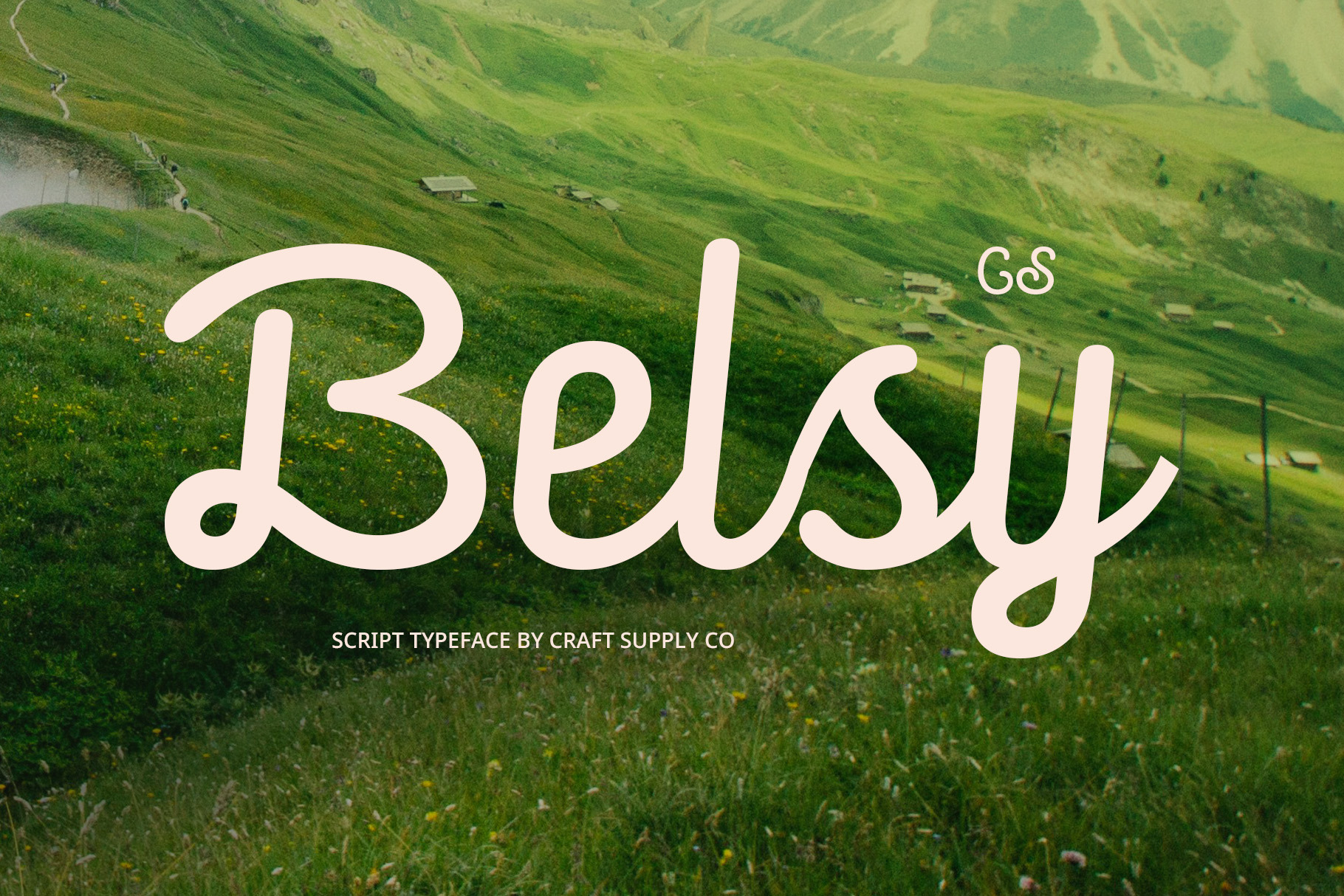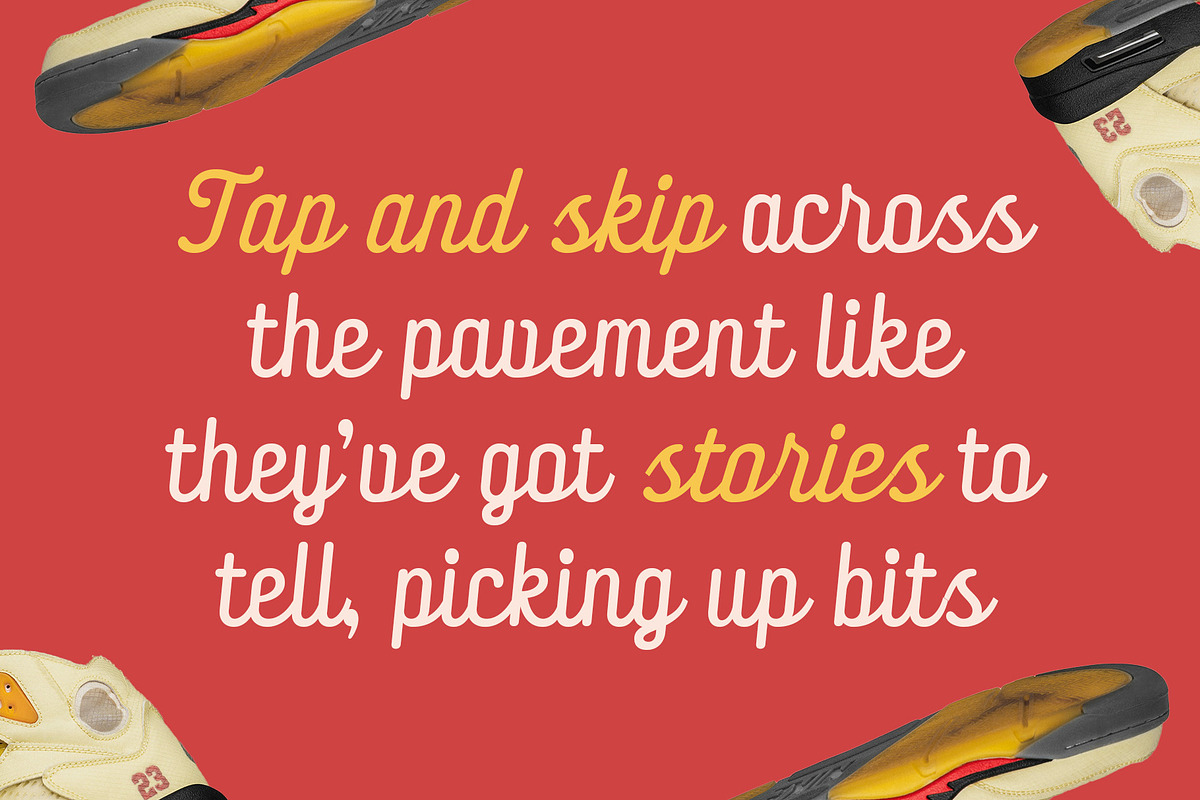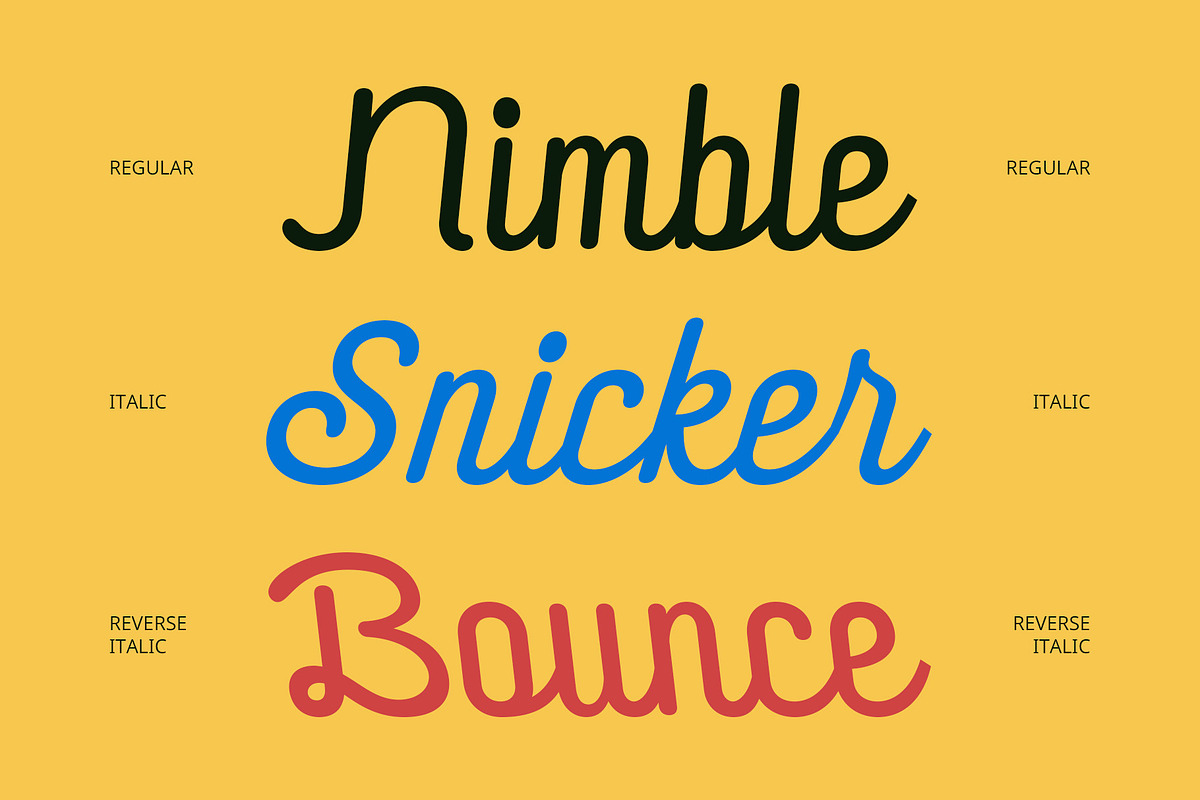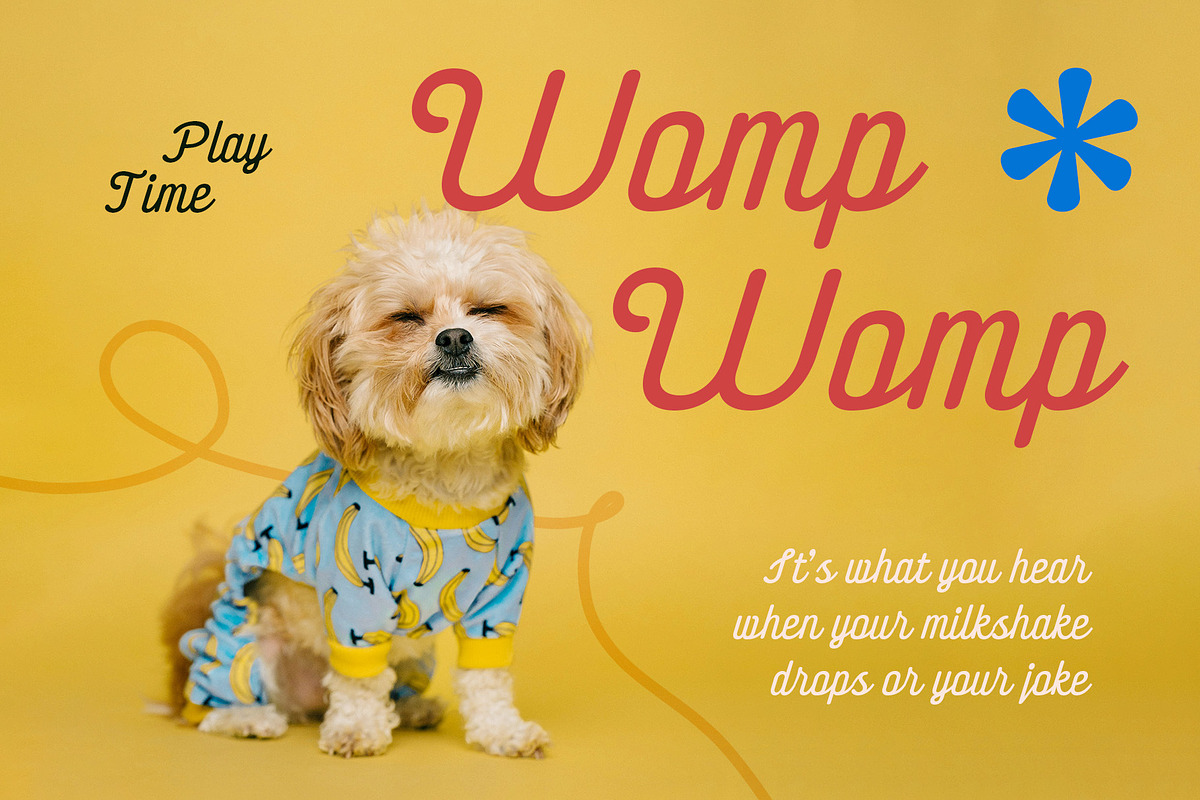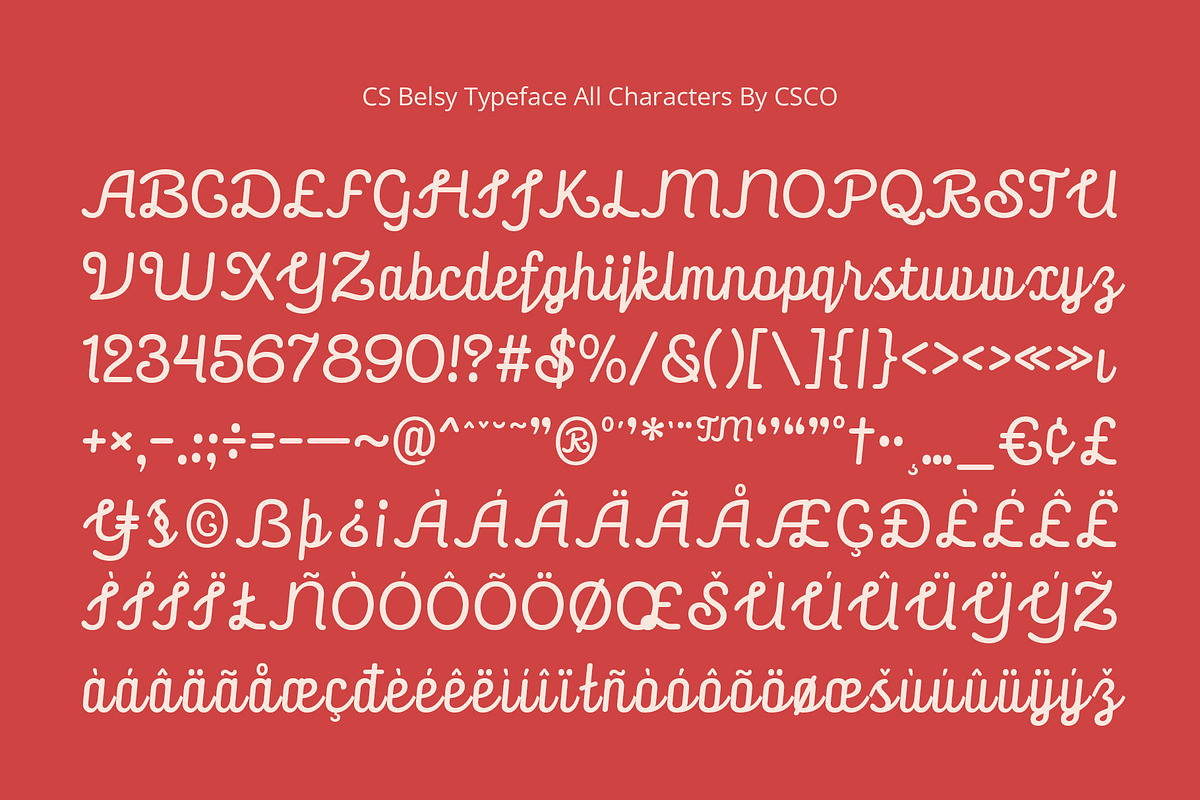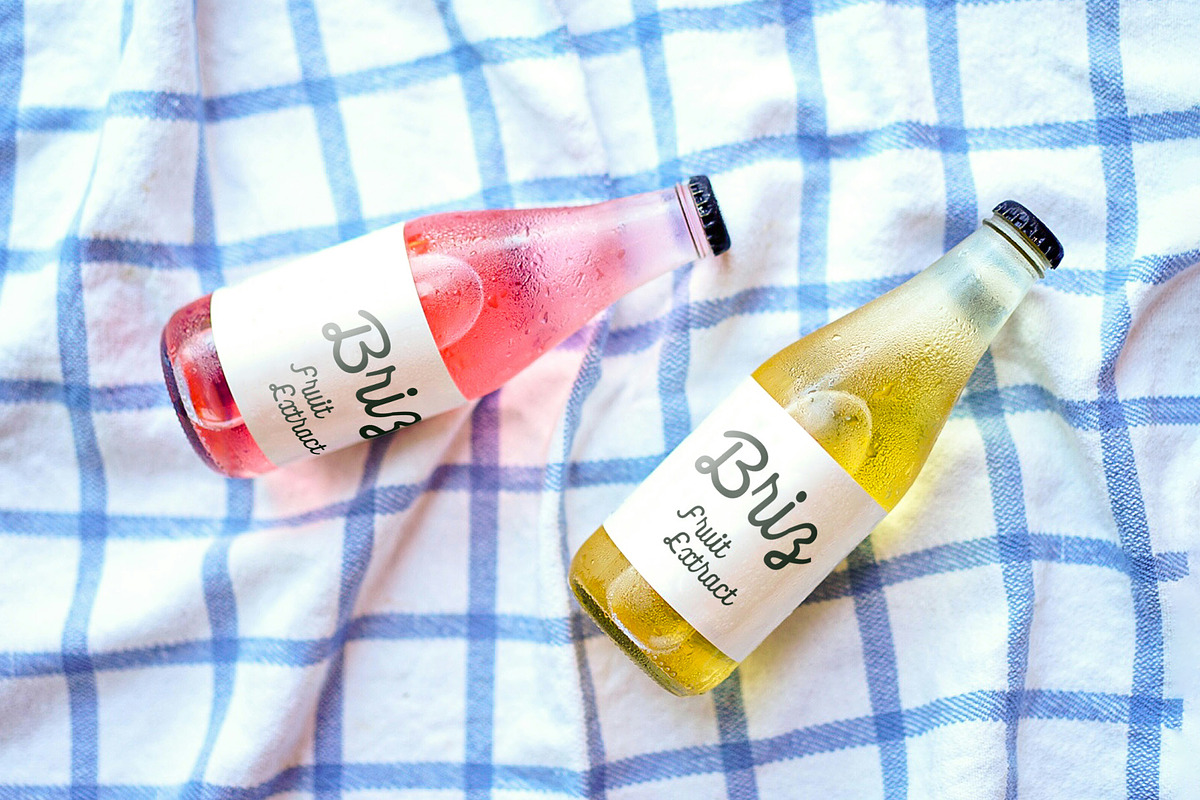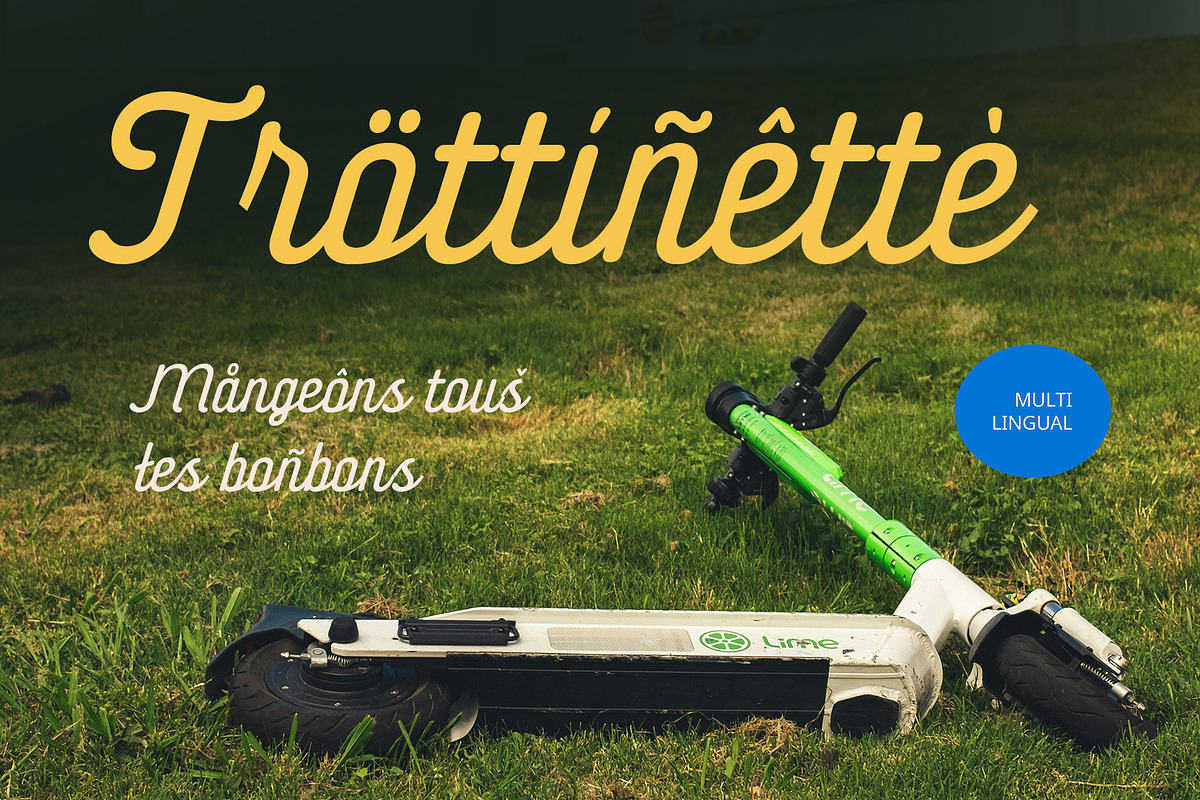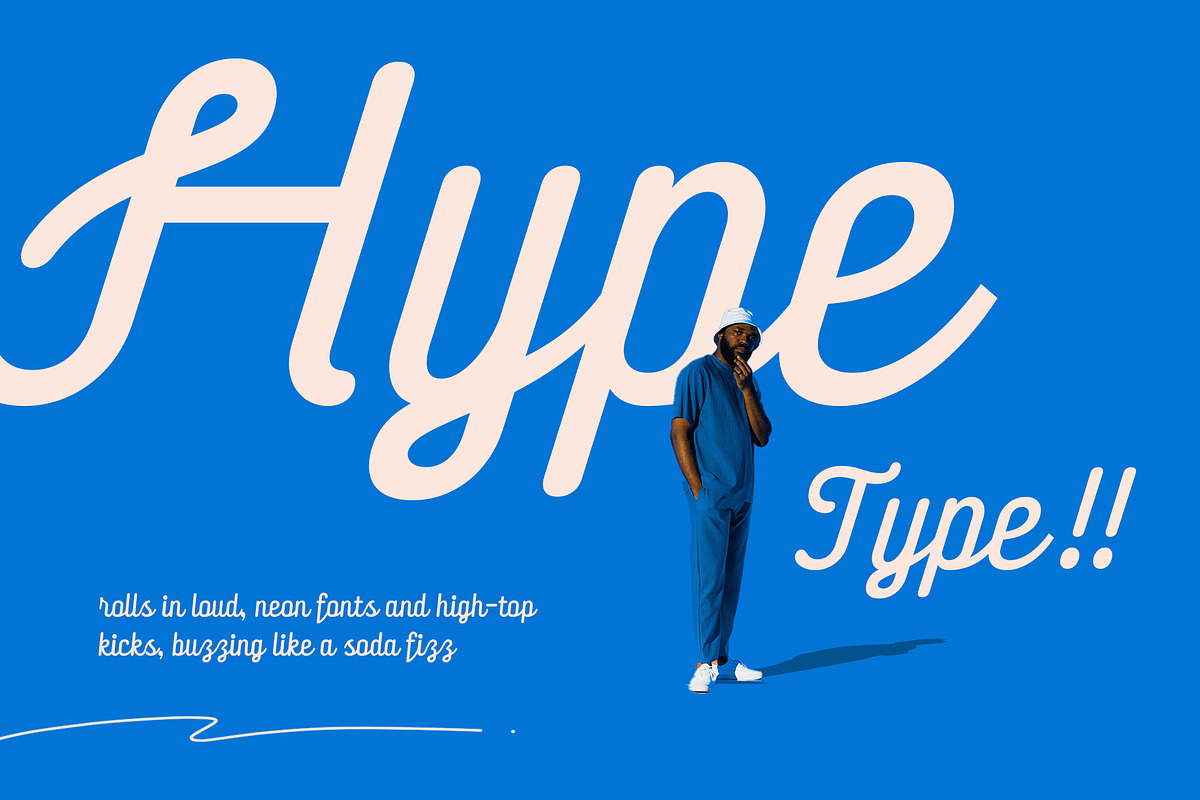
CS Belsy – Script Font
CS Belsy – Script Font: Graceful Handwriting with Sweet Personality
Soft Handwritten Style with Natural Flow CS Belsy is a script font that captures the charm of authentic handwriting. Its fluid, soft strokes and elegant curves create a graceful rhythm that feels both personal and expressive. Designed with a feminine and sweet character in mind, it offers a lovely, delicate touch for any design.
Aesthetic and Lovely Letterforms Each letter in CS Belsy is crafted to resemble charming penmanship, blending beauty with playfulness. The balance between stylish loops and natural flow gives this font a warm, friendly tone—ideal for evoking emotion and elegance in every word.
Perfect for Feminine Branding and Invitations Whether you’re designing wedding invitations, skincare labels, or fashion branding, CS Belsy brings a sense of intimacy and sophistication. From wedding invitations and skincare packaging to beauty branding and heartfelt messages, CS Belsy brings a touch of femininity and sophistication to every use. Its aesthetic appeal is especially suited for creative projects targeting women-centric audiences, romantic occasions, or brands that embrace elegance and emotional connection.
Express Your Message with Personality and Grace With its handcrafted look and sweet charm, CS Belsy allows your message to stand out while feeling deeply personal. It’s a versatile choice for creatives who want to combine elegance, softness, and individuality in their visual storytelling.